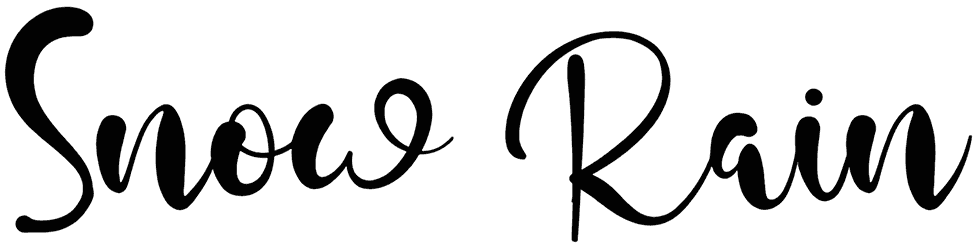
Snow Rain Font
When you think about art, and you intend to turn your every project into a masterwork, Snow Rain is one of the options that can help you.
Whether it’s an ad on a train, an Instagram caption, or a billboard, this Christmas font can positively impact how we read a message, how we feel about it, and how we interpret it. By incorporating the calligraphy into your design, this script font can add meaning to it.